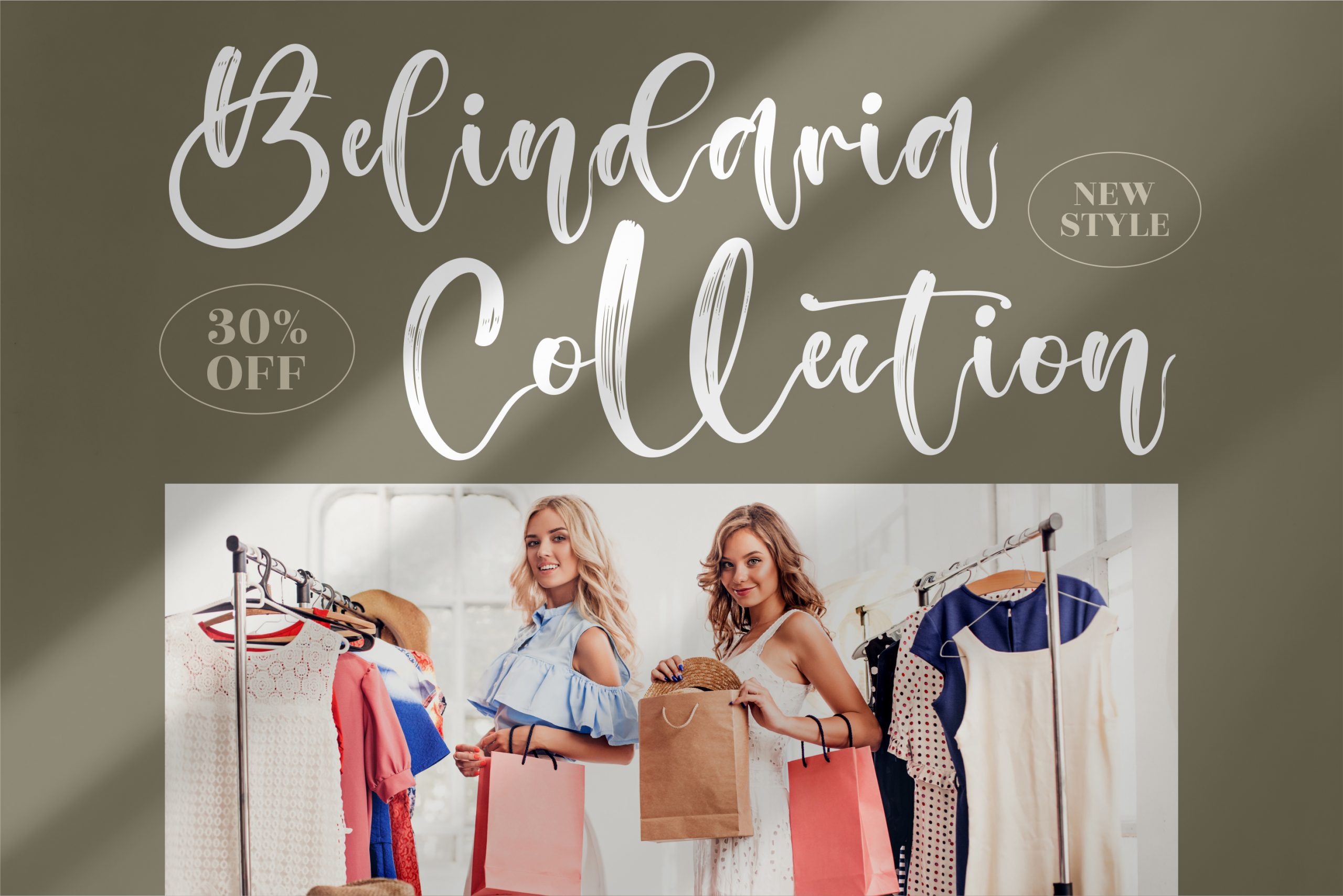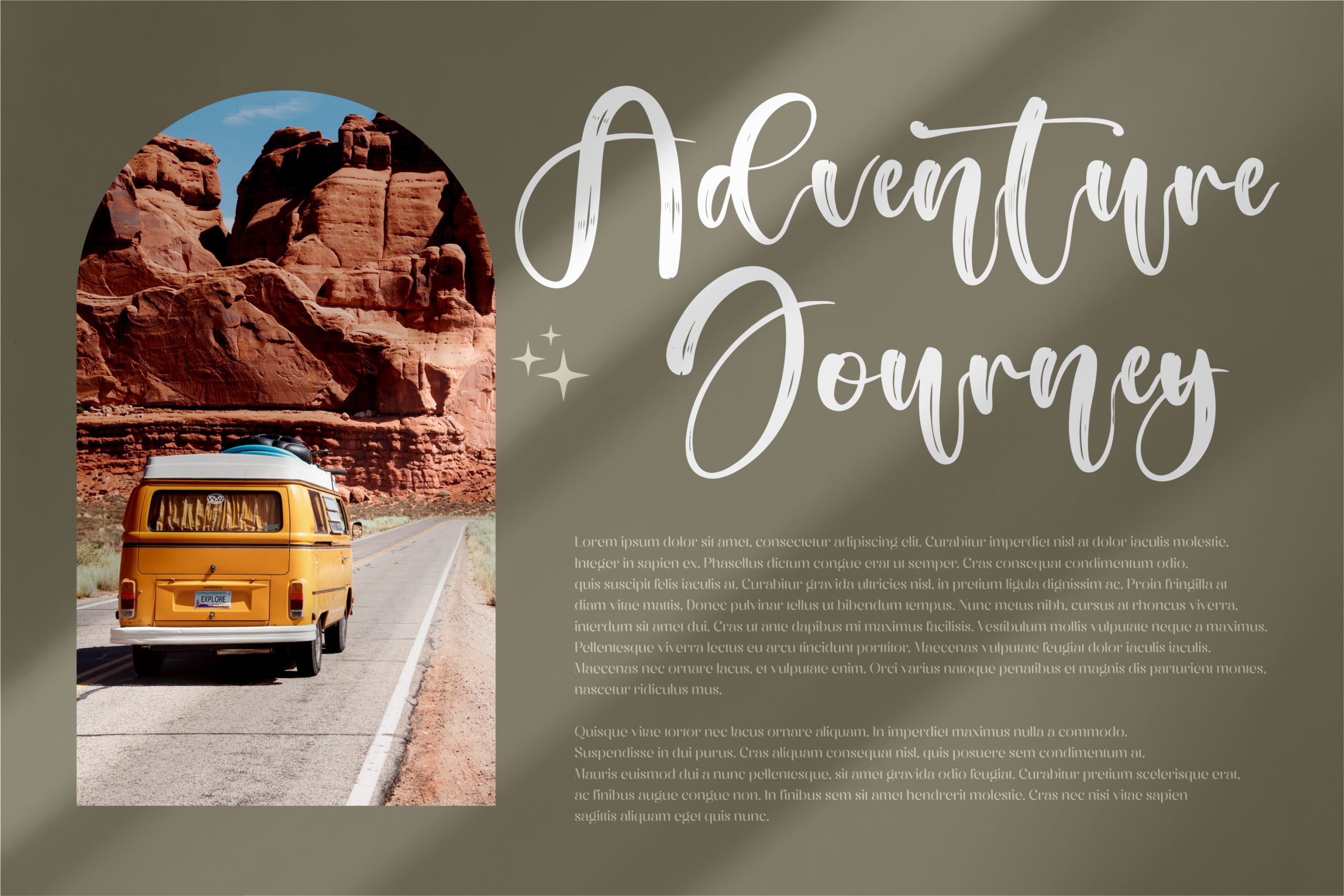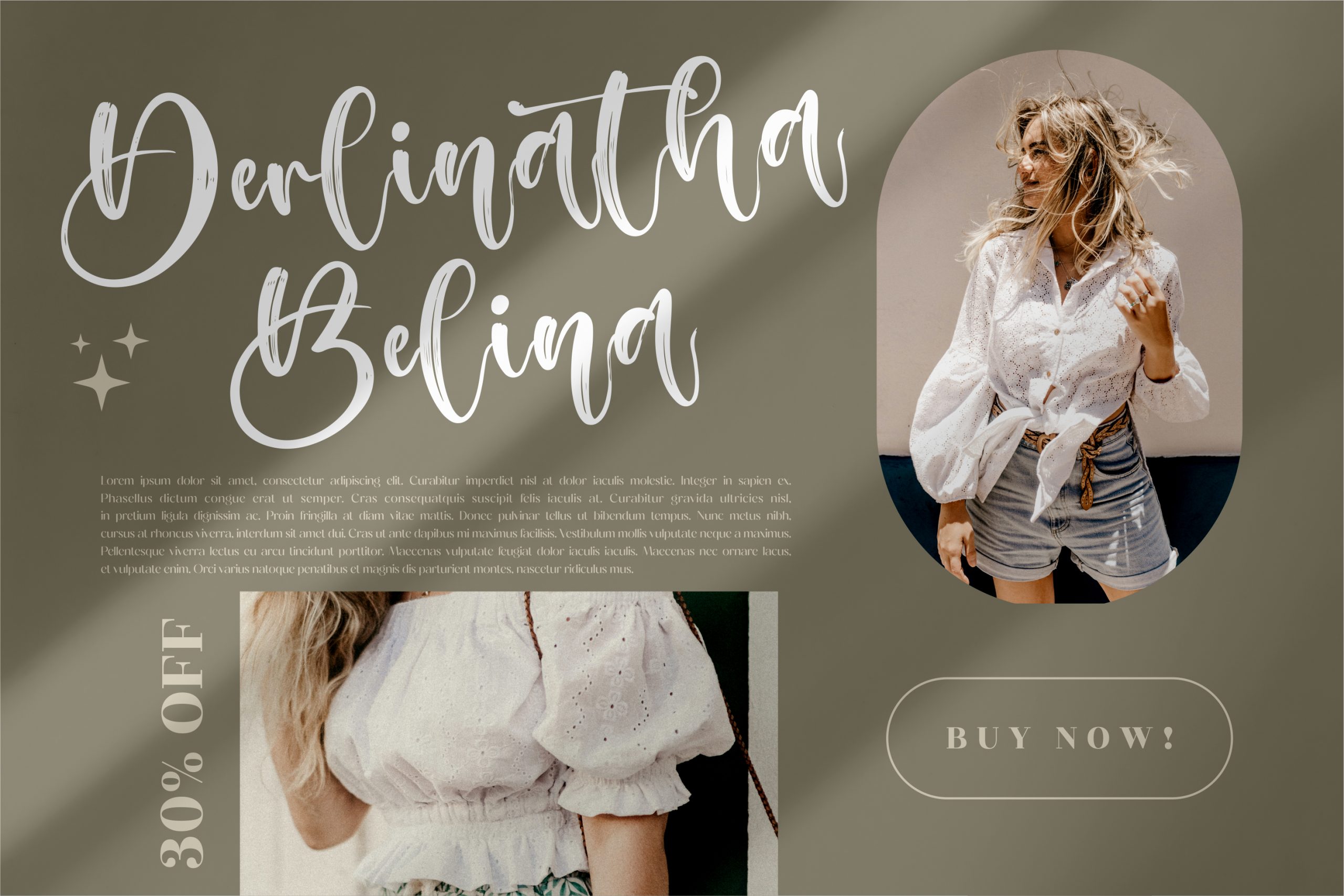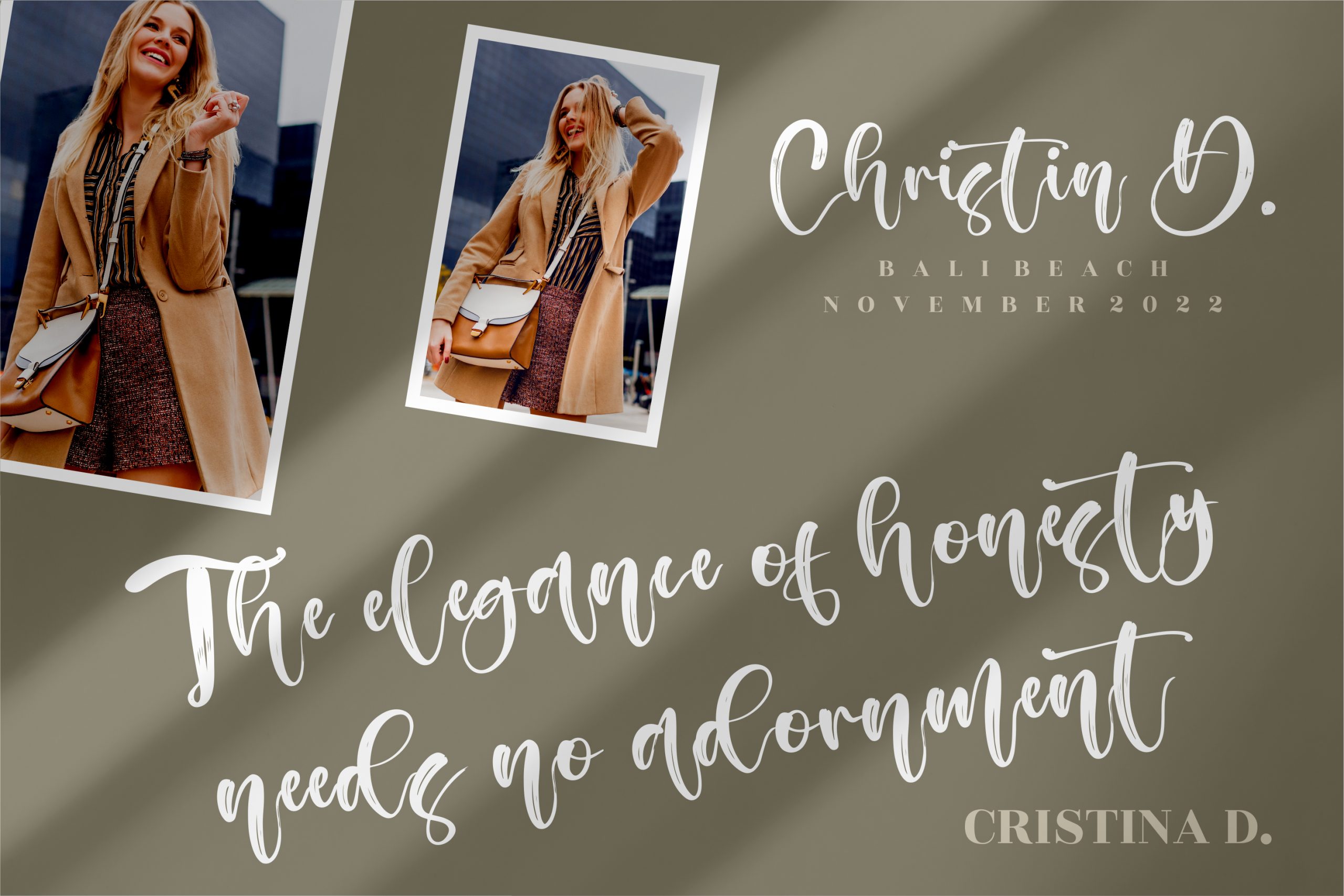
Australia Beauty Font
Australia Beauty Script Font
This is a handwritten font, suitable for any projects such as: logos, branding projects, homeware designs, product packaging, mugs, quotes, posters, shopping bags, t-shirts, book covers, name card, invitation cards, greeting cards, label, photography, watermark, special events, and all your other luxury projects that need a handwritten taste.